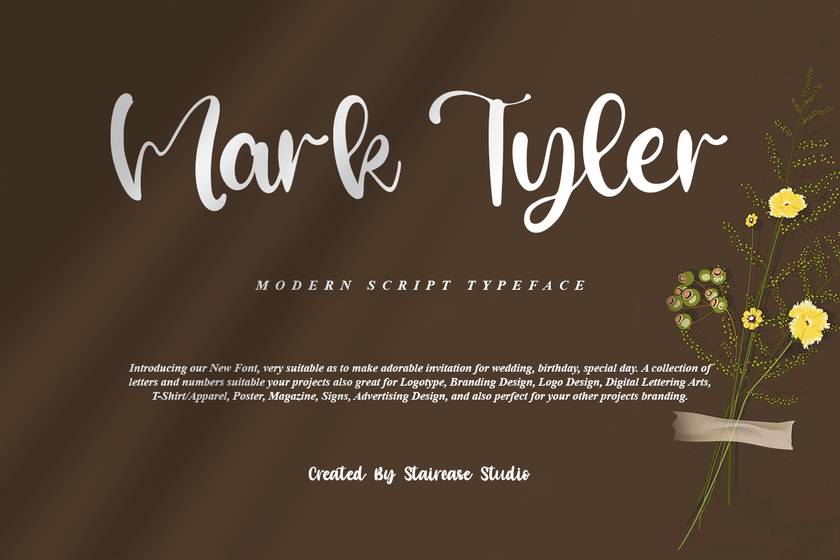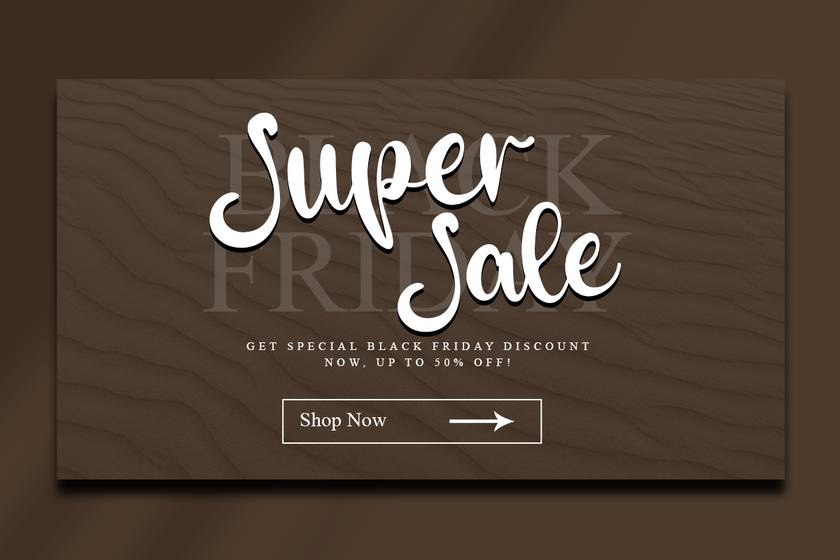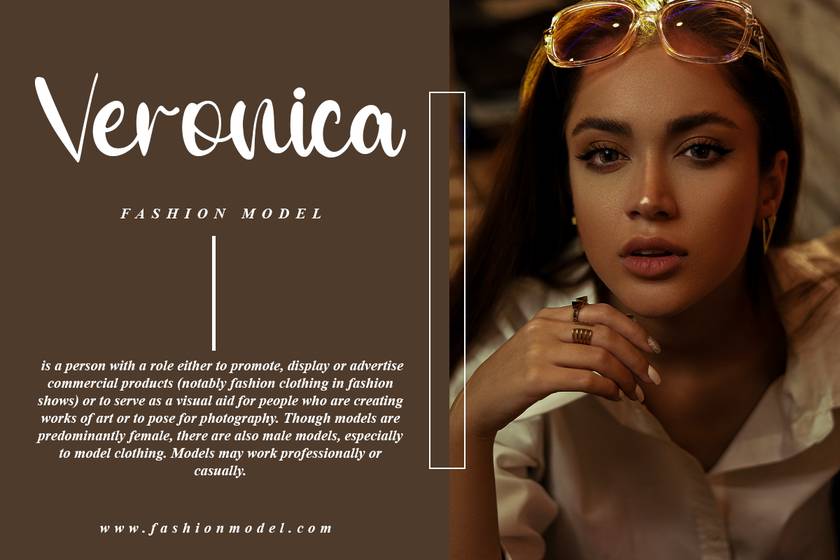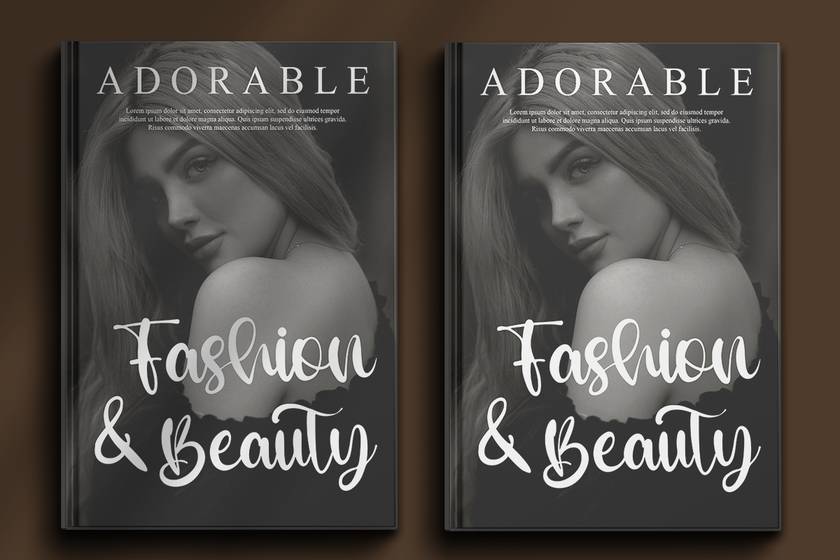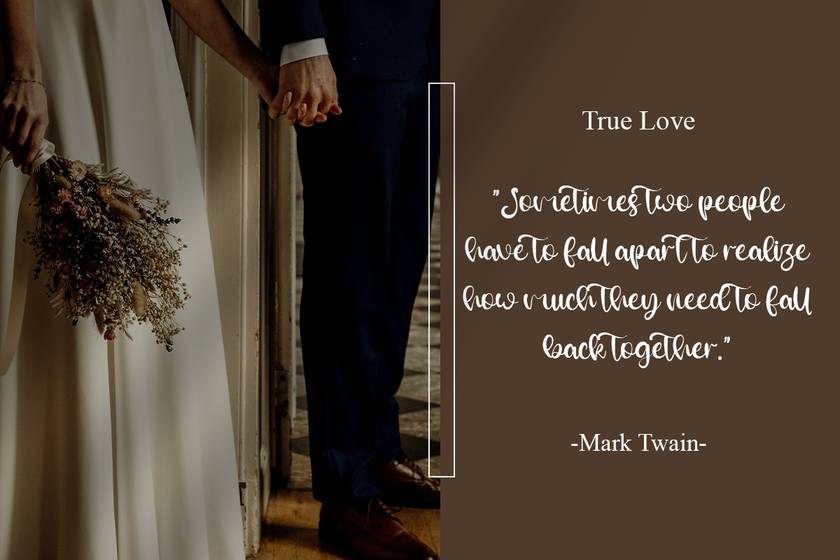
Mark Tyler is a playful and elegant script font characterized by its flowing, hand-lettered style with a casual yet refined feel. Its varying stroke widths and whimsical letterforms make it perfect for creative projects such as branding, invitations, and headlines that need a personal, artistic touch. This font stands out in designs looking to combine warmth and sophistication with a modern handwritten charm.
Mark Tyler Font
About Mark Tyler Font
| Font family | Mark Tyler Font |
| Release date | 2021-11-10 |
| Designer | Staircase Studio |